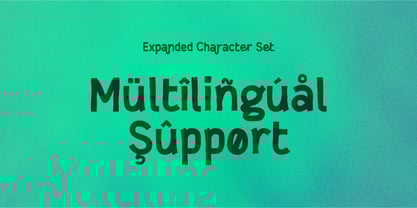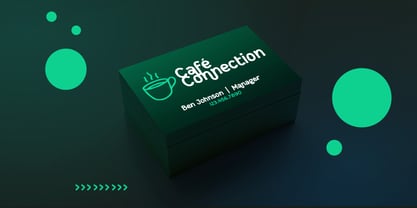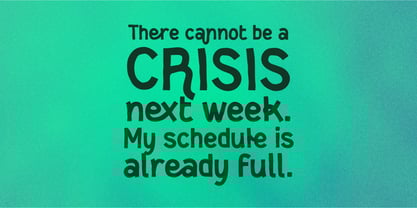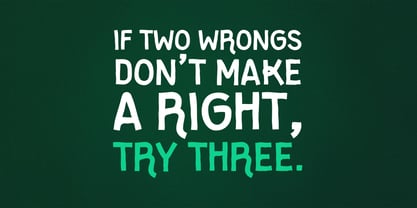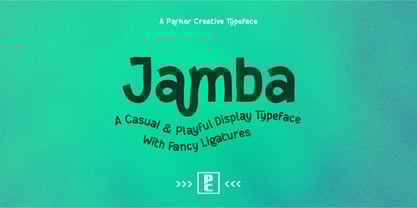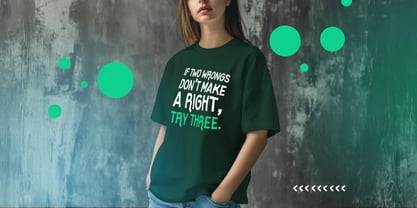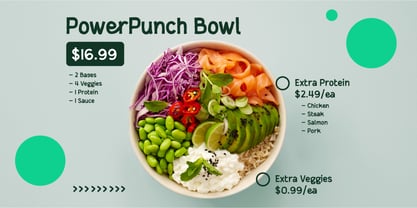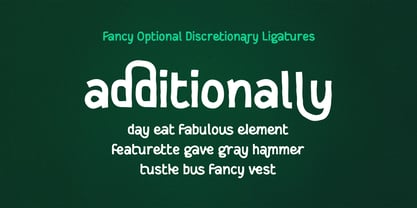
Jamba
Looking for a casual font that still makes a bold statement? Jamba hits that sweet spot.
Jamba is a playful and modern font designed to bring fresh, hand-drawn energy to your branding. With its rough edges and fancy ligatures, Jamba is the cool font your next project has been waiting for. Whether you’re building a hip restaurant concept, launching a health-focused brand, or shaping an eco-conscious business, Jamba’s laid-back style and organic personality fit right in.
Crafted as a hand-drawn font with an eye for detail, Jamba balances whimsy and structure, making it ideal for logos, menus, packaging, and more. Its playful characteristics add charm and approachability, while eye-catching ligatures and fluid strokes keep it feeling fresh and contemporary.
Jamba is Ideal for:
• Organic and sustainable brands
• Modern cafés and farm-to-table restaurants
• T-shirts with clever slogans
• Event posters for street fairs and pop-ups
• Branded recipe cards
• Lifestyle blogs
• Eco-conscious app interfaces
• Fitness, wellness, and clean beauty products
• Youthful, vibrant startups
• Sustainable fashion labels
• Farmer’s markets and organic grocery branding
• Boutique hotels or eco-lodges
• Children’s book titles and headers